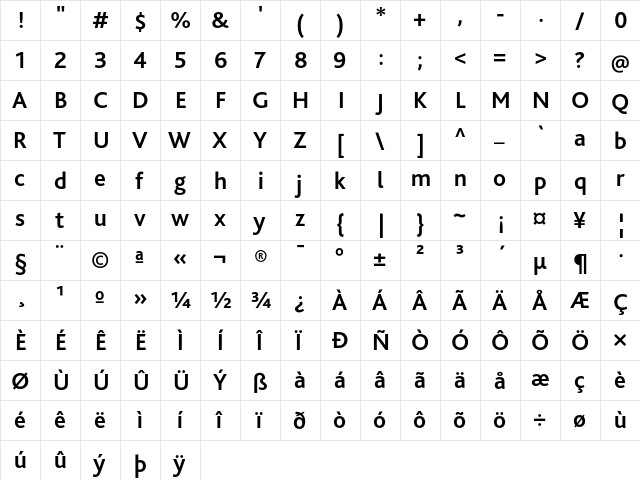
Bliss Pro Bold
Design Context for Bliss Pro Typeface
Bliss Pro is a composed and adaptable typeface that performs quietly and consistently across a wide range of design contexts. The heavy weight commands attention and anchors typographic hierarchies.